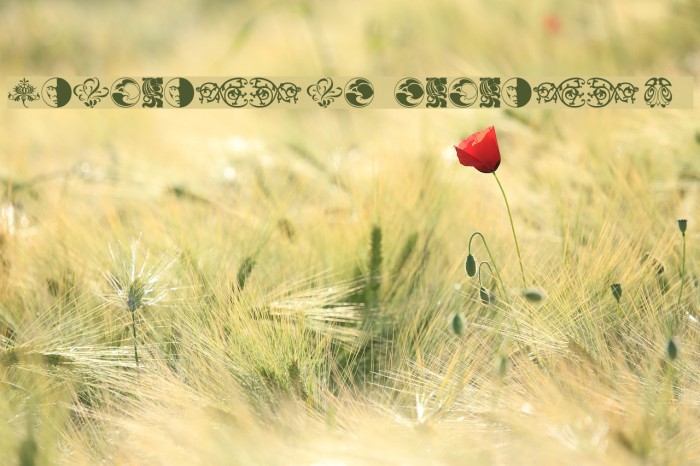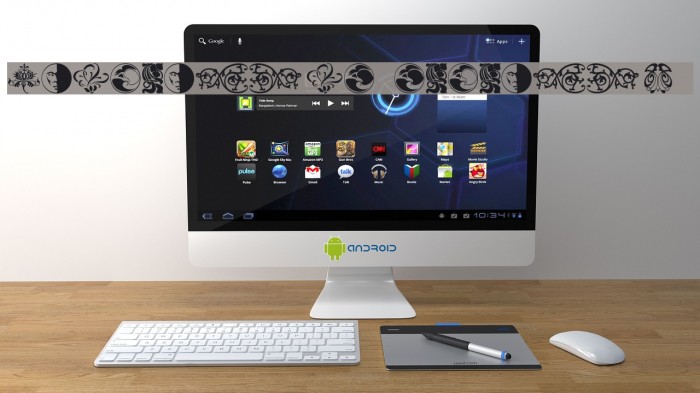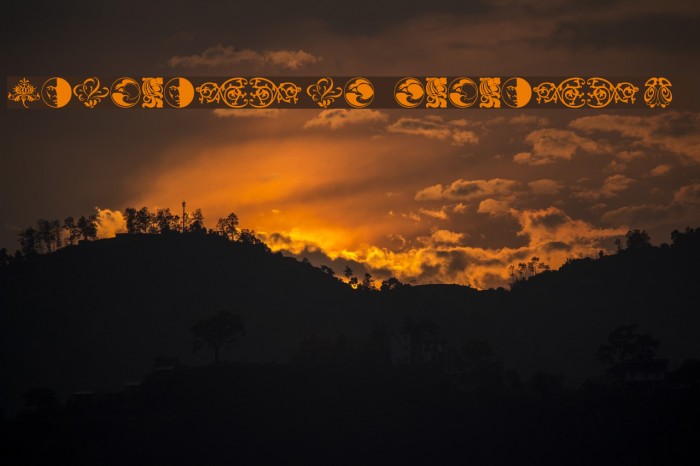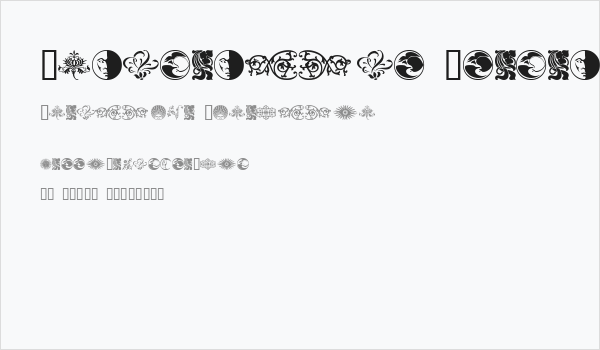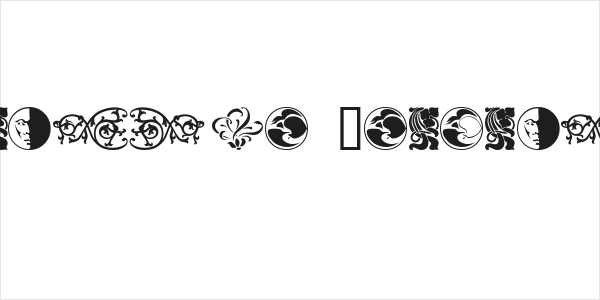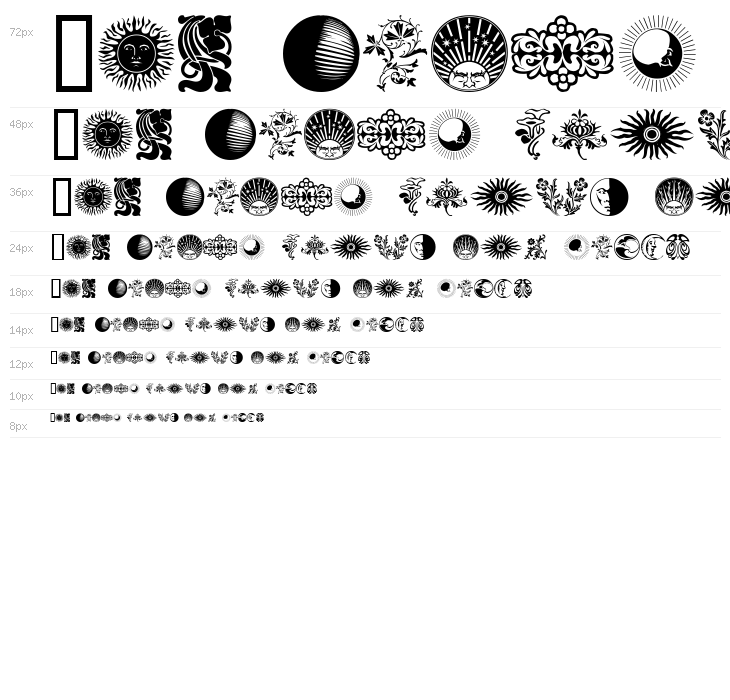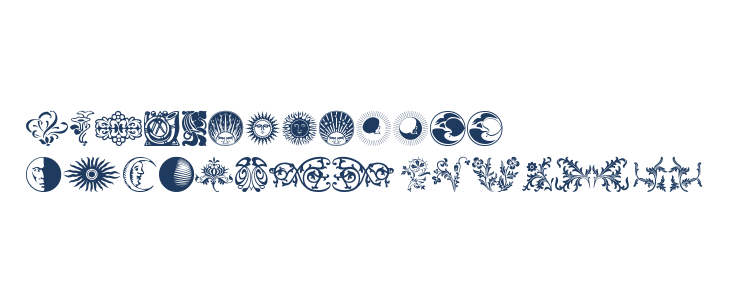
Ornamental Elements II Font
Ornamental Elements II Description
A decorative collection of ornamental and illustrative glyphs featuring intricate flourishes, sun and moon motifs, and vintage-inspired embellishments. The elements are highly detailed and designed for ornamental use rather than traditional text.
| Overall Style | Decorative, Vintage, Ornamental |
| Use Case | Logos, Decorative elements, Borders, Headings |
| Proposed Projects | Invitations, certificates, decorative borders, vintage posters, branding for luxury or artisanal products. |